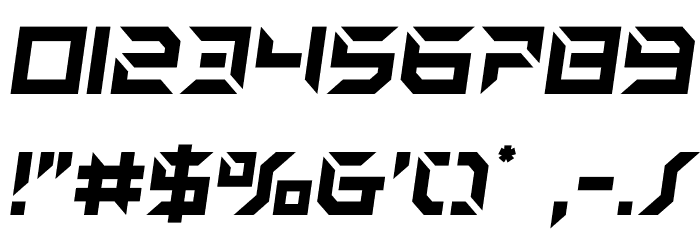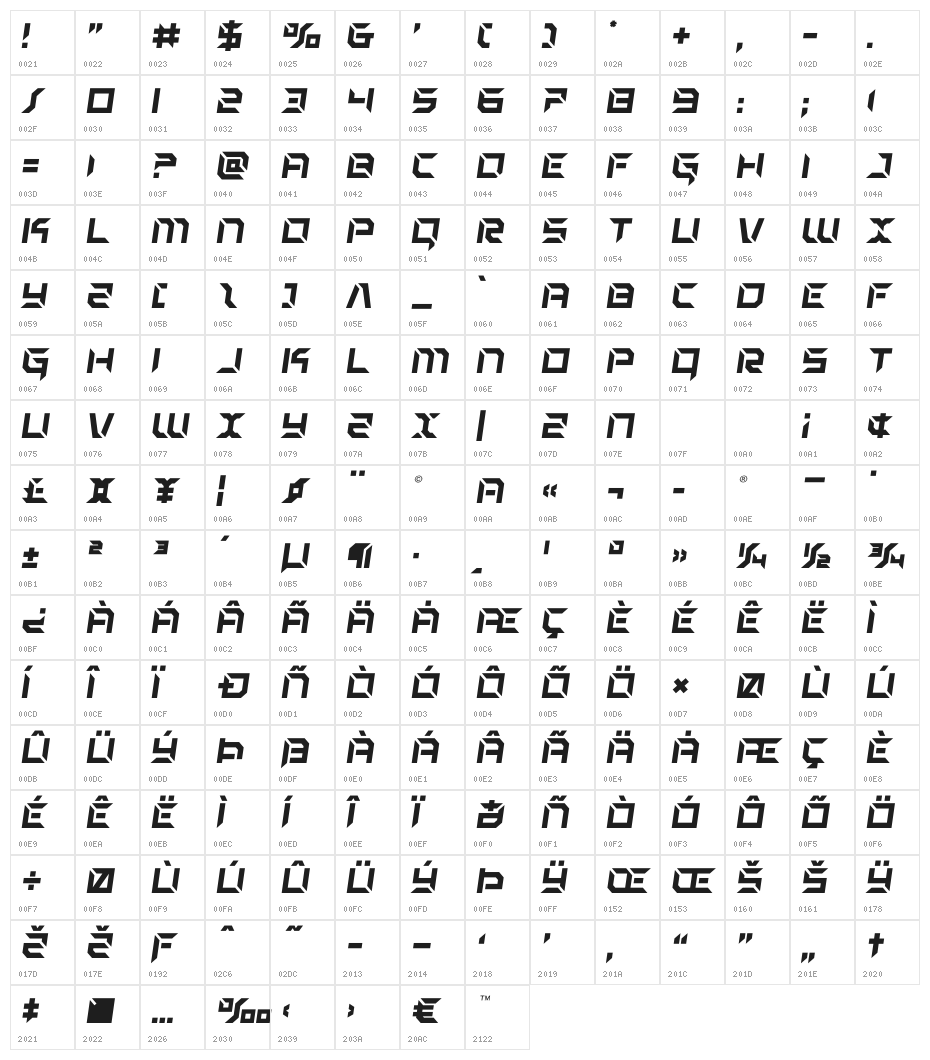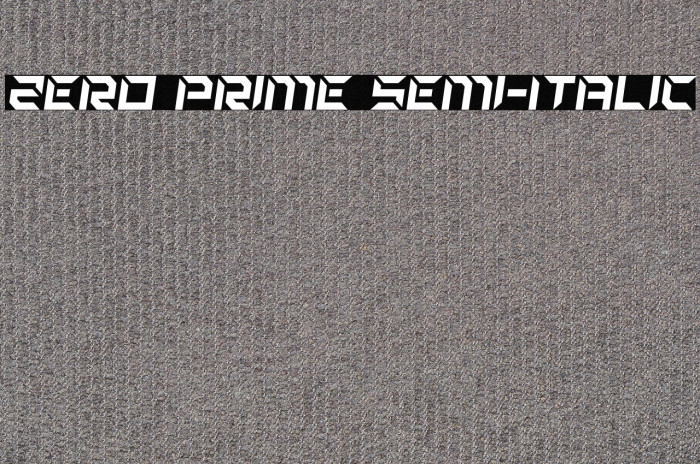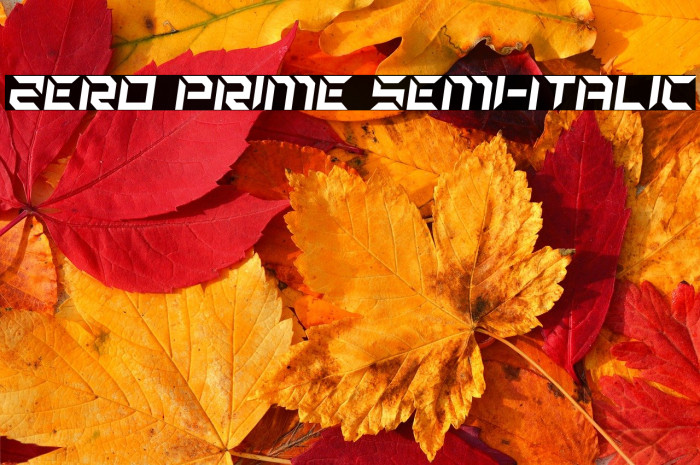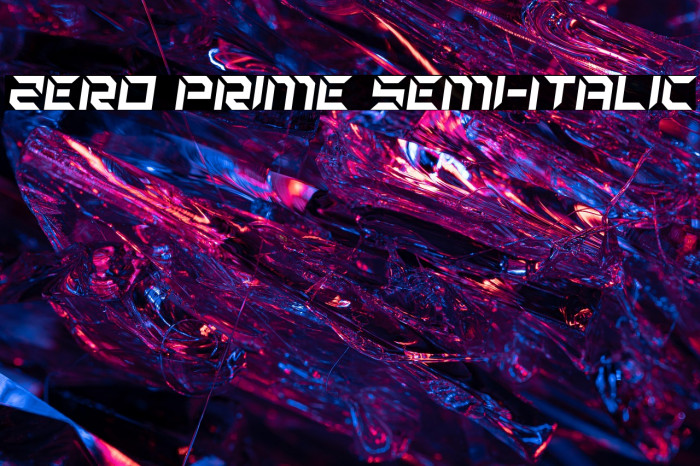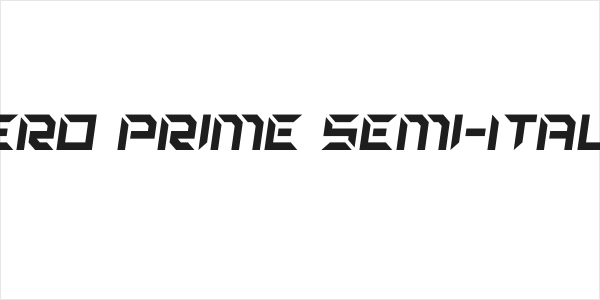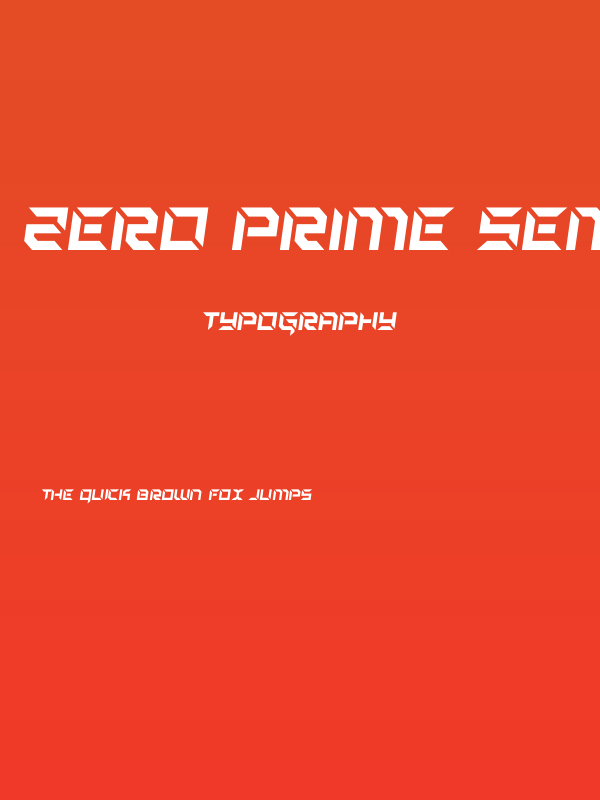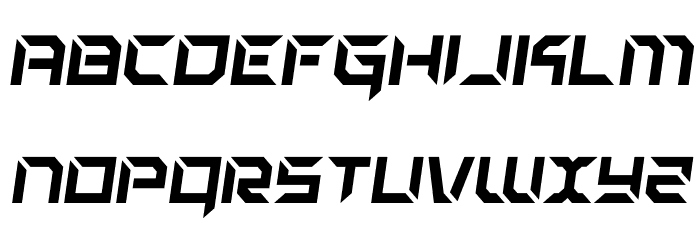
Zero Prime Semi-Italic Font
Zero Prime Semi-Italic Description
This font features a futuristic and angular design, characterized by sharp edges and geometric shapes. The letters are bold and dynamic, with a semi-italic slant that adds a sense of motion and energy. The uppercase and lowercase letters maintain a consistent style, with a unique approach to traditional letterforms. Numbers and special characters follow the same aesthetic, ensuring a cohesive look across all text. The font's distinctive style makes it ideal for projects that require a modern and edgy appearance.
| Proposed Projects | Ideal for sci-fi themed designs, video game titles, tech branding, and modern posters. |